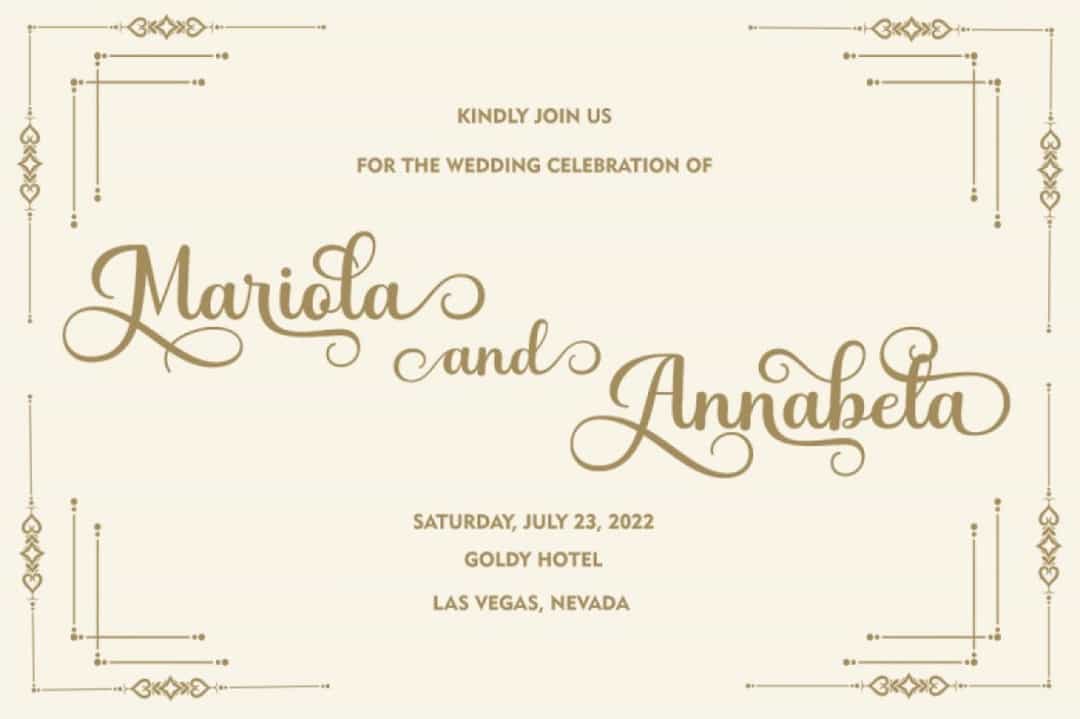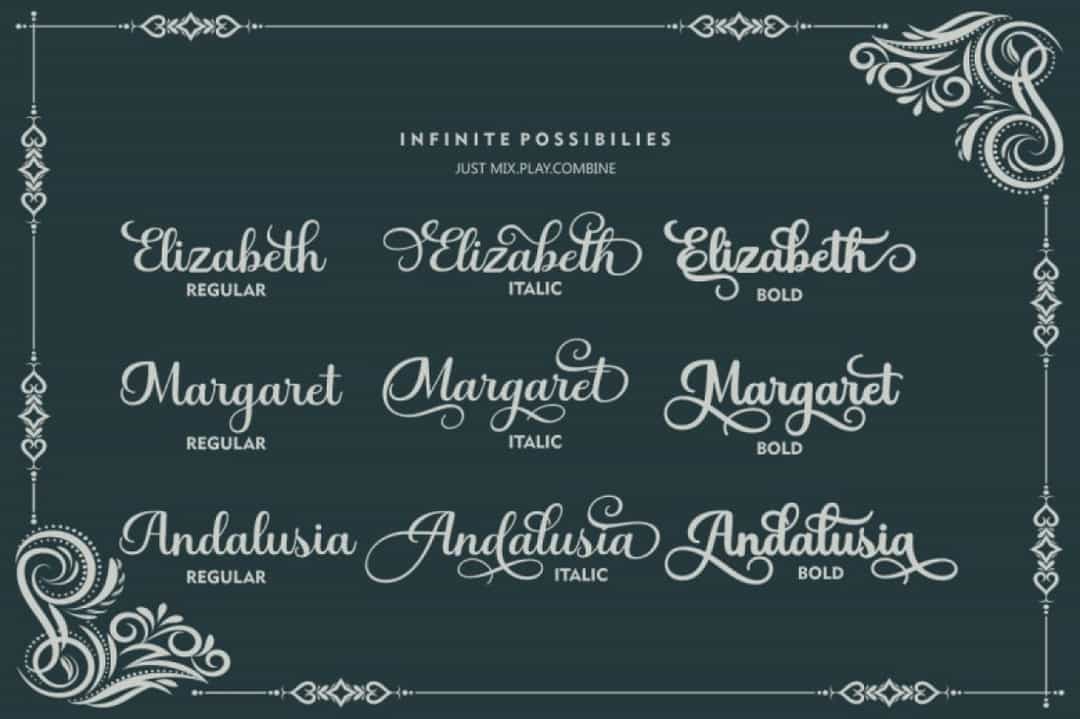
Best Valentina is an exquisite script calligraphy font which offers stunning alternative characters. Created using copper calligraphy in hand-lettering style, its sophisticated appearance is designed to evoke sophistication. As an elegant typeface, Valentina stands out for being sleek yet clean feminine sensual elegant simple and easy to read; making this font suitable for use on invitations menus labels logos romantic novels letterspress magazines books greeting cards wedding cards packaging and labels among many other formal applications.